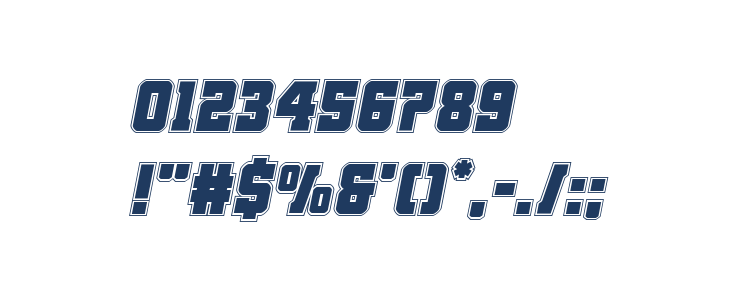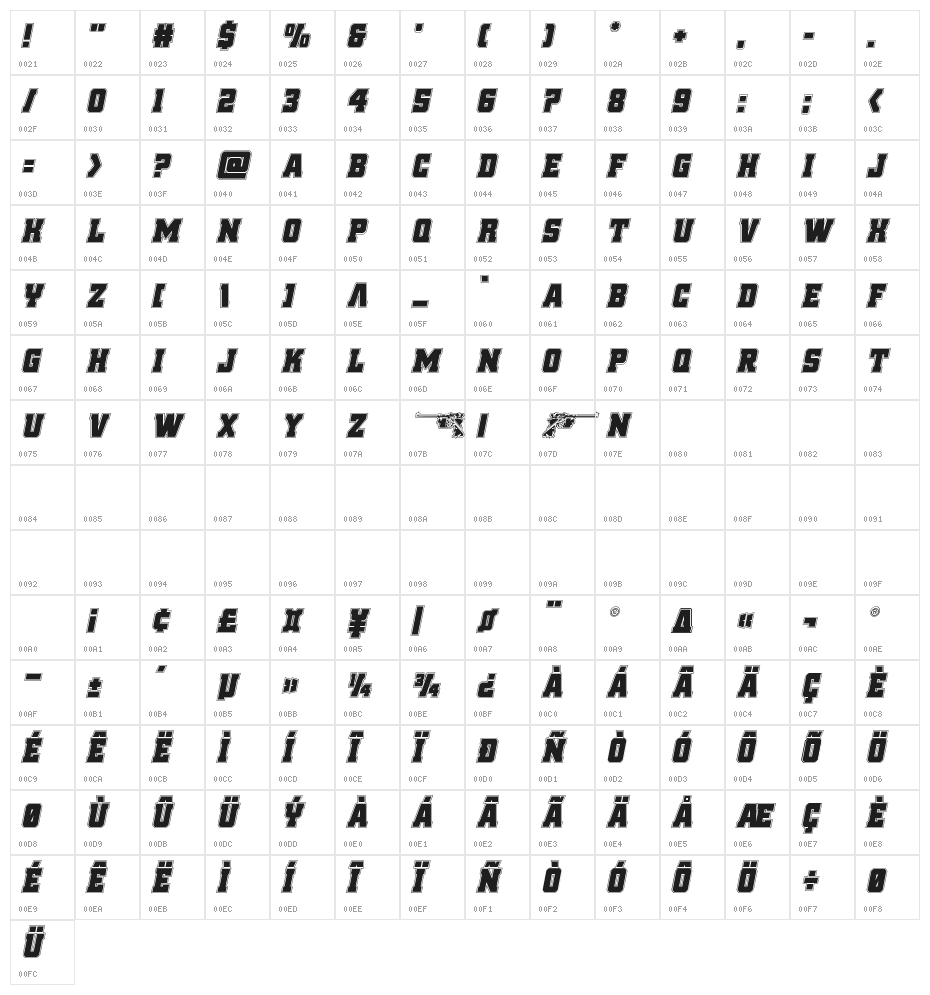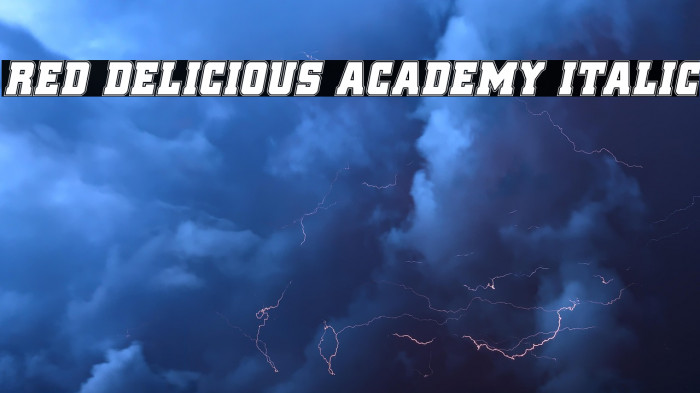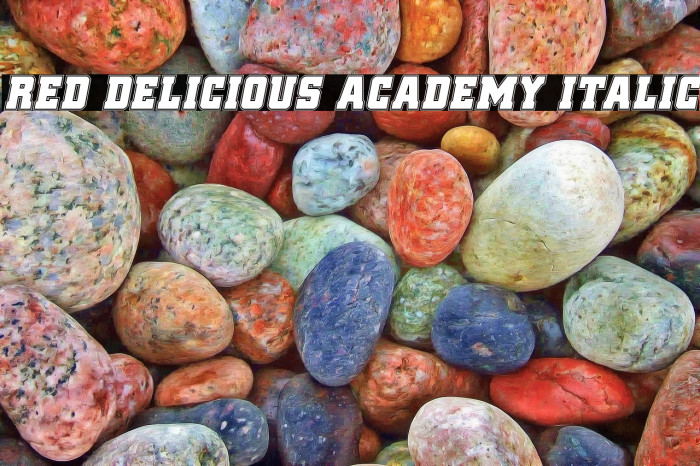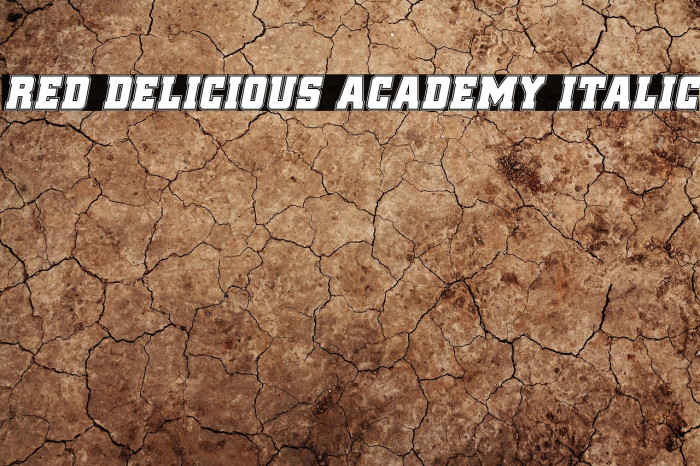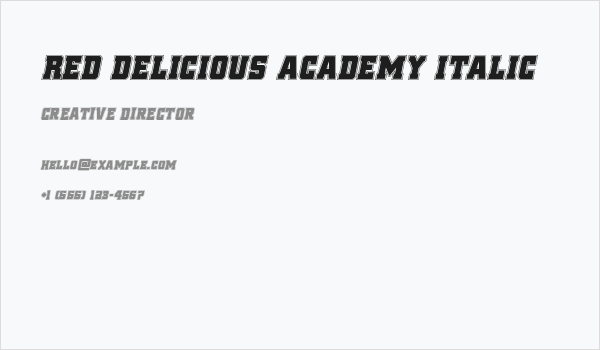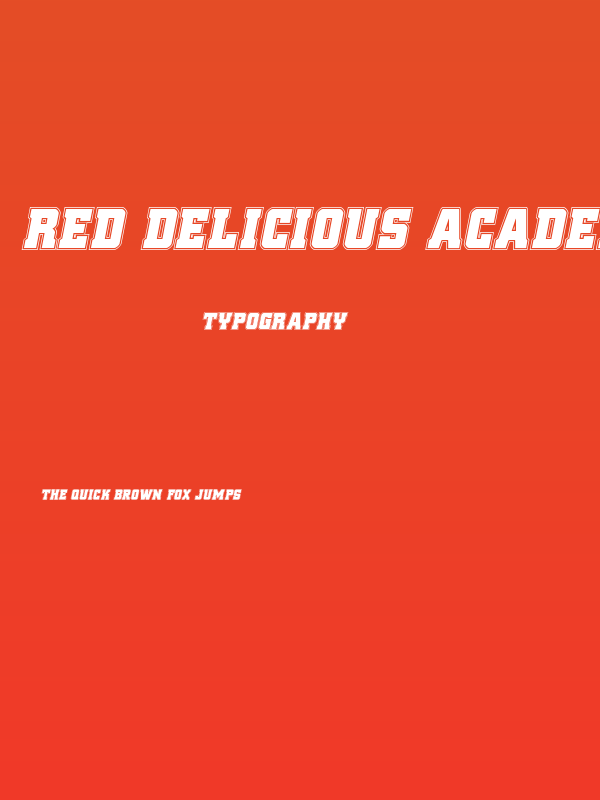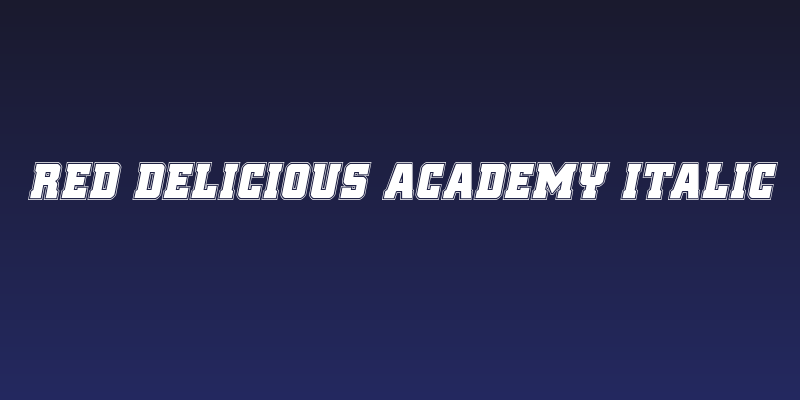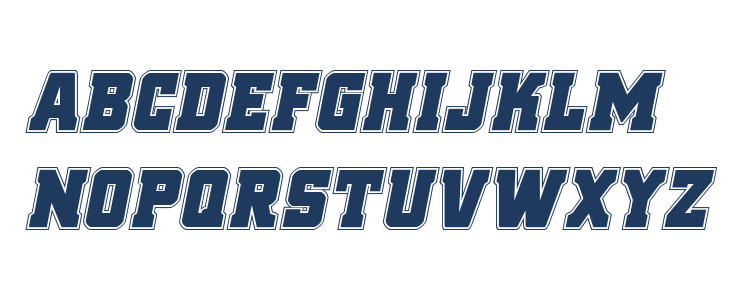
Red Delicious Academy Italic Font
Red Delicious Academy Italic Description
This font features bold, blocky characters with a distinct italic slant, giving it a dynamic and energetic appearance. The letters are outlined with a thick black border, enhancing their visibility and impact. The overall style is reminiscent of sports or collegiate themes, making it ideal for designs that require a strong and assertive presence. The uppercase and lowercase letters maintain a consistent style, with numerals and special characters following suit. The font's boldness and italic nature make it stand out, suitable for attention-grabbing headlines or logos.
| Overall Style | Modern, Sporty |
| Proposed Projects | Ideal for sports team branding, event posters, merchandise design, and dynamic headlines. |